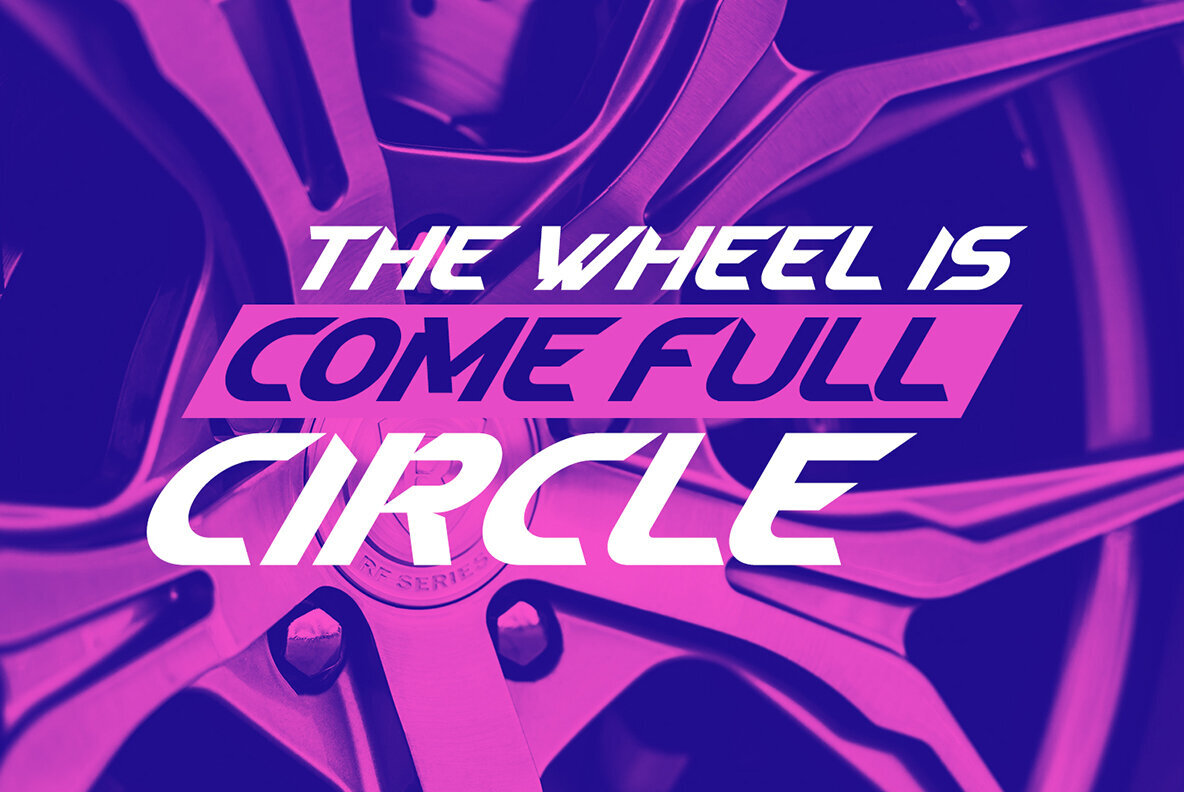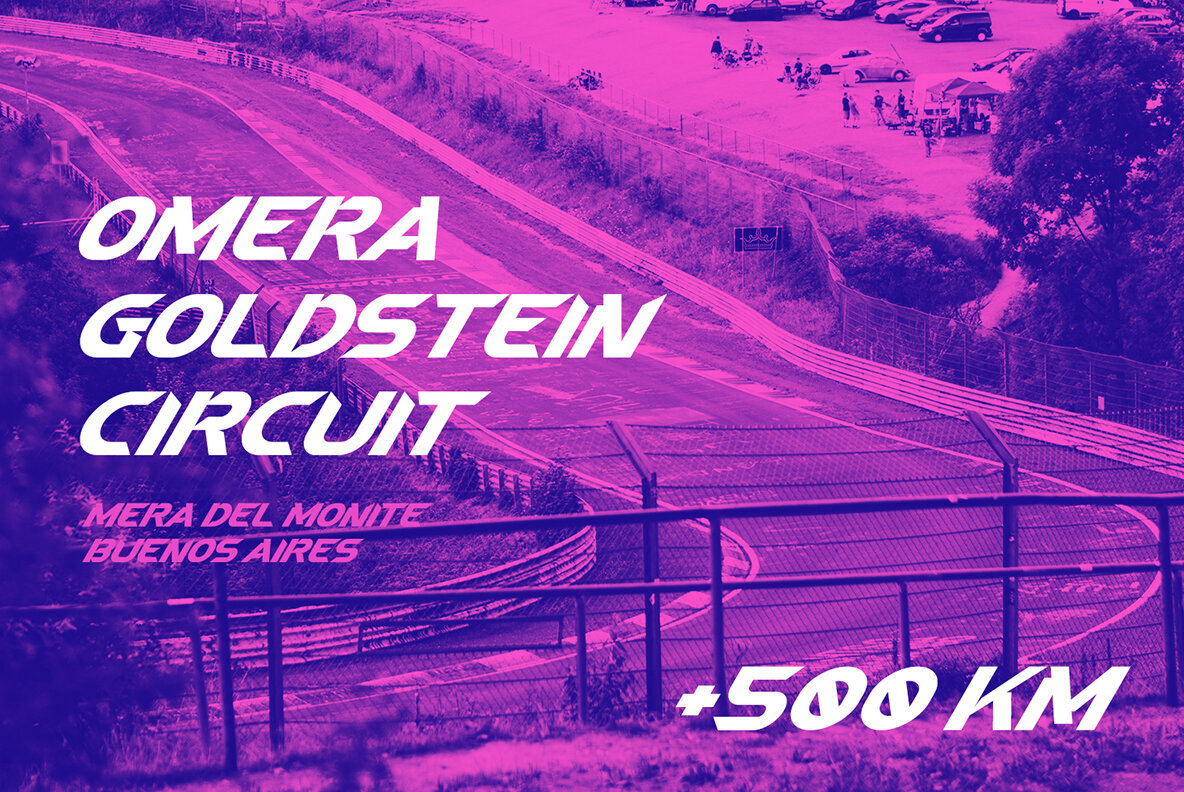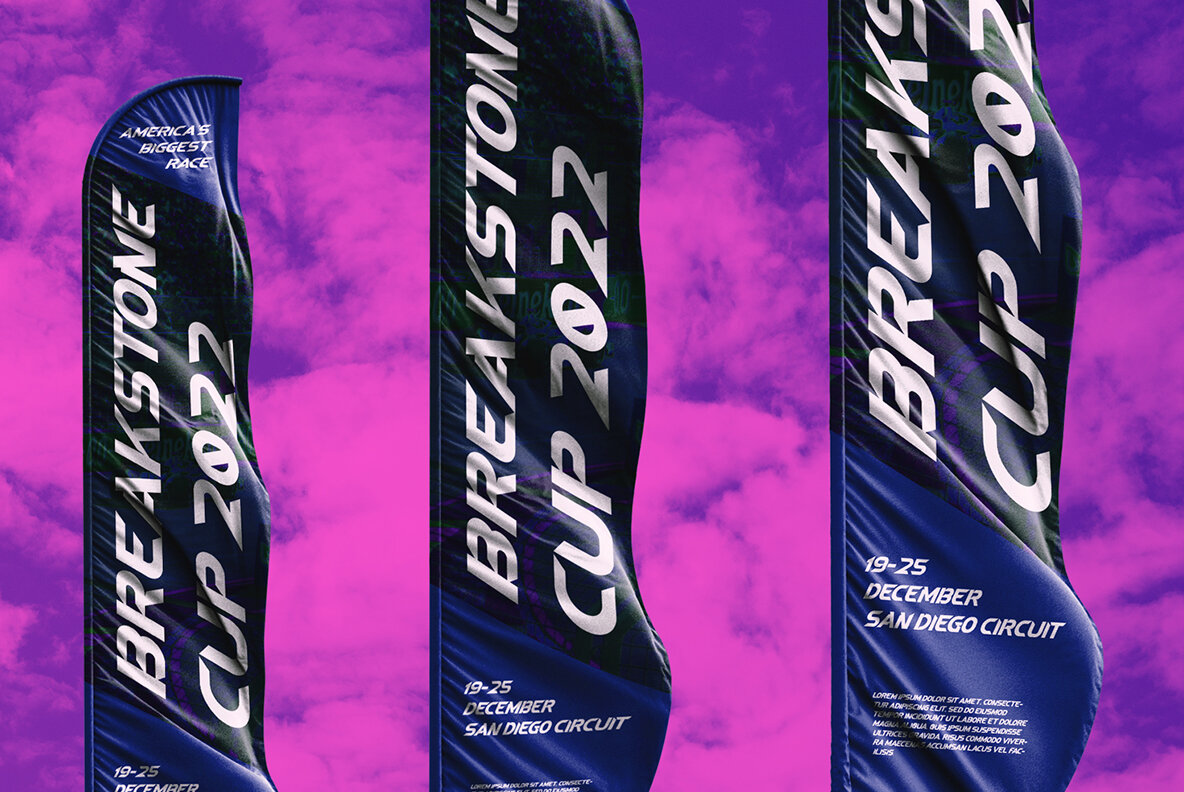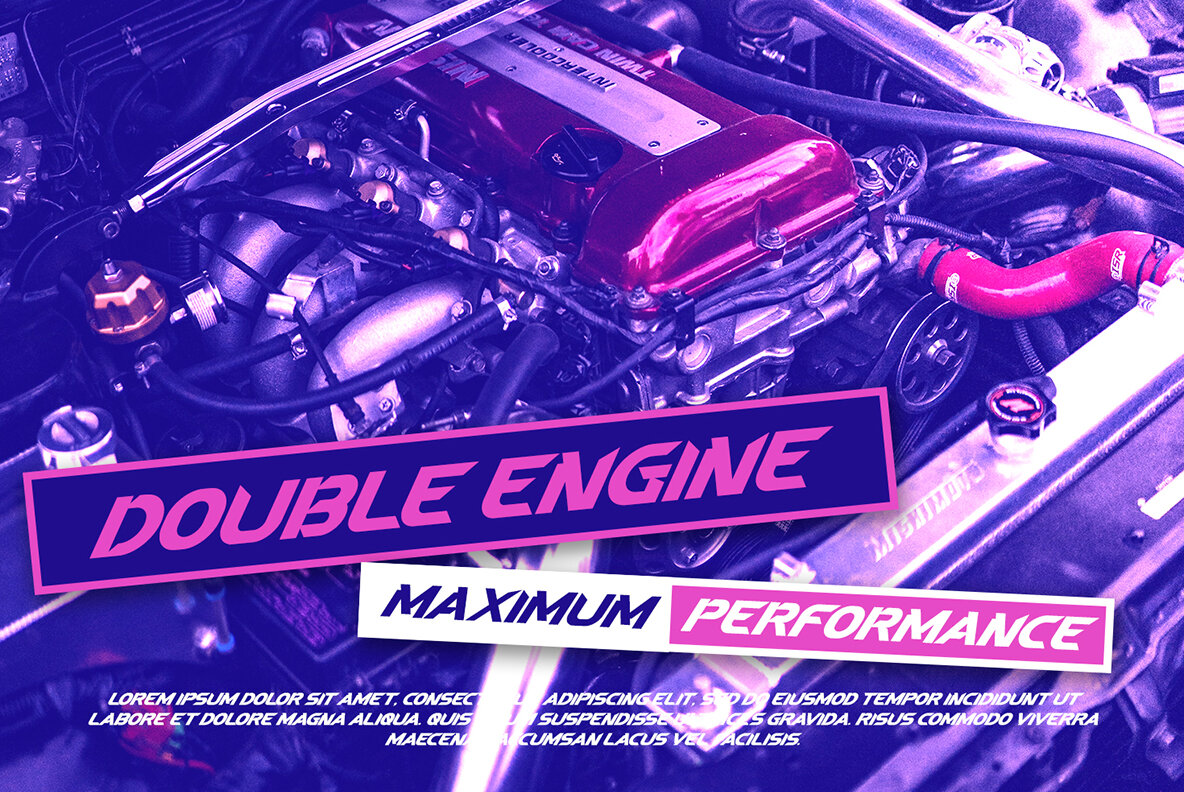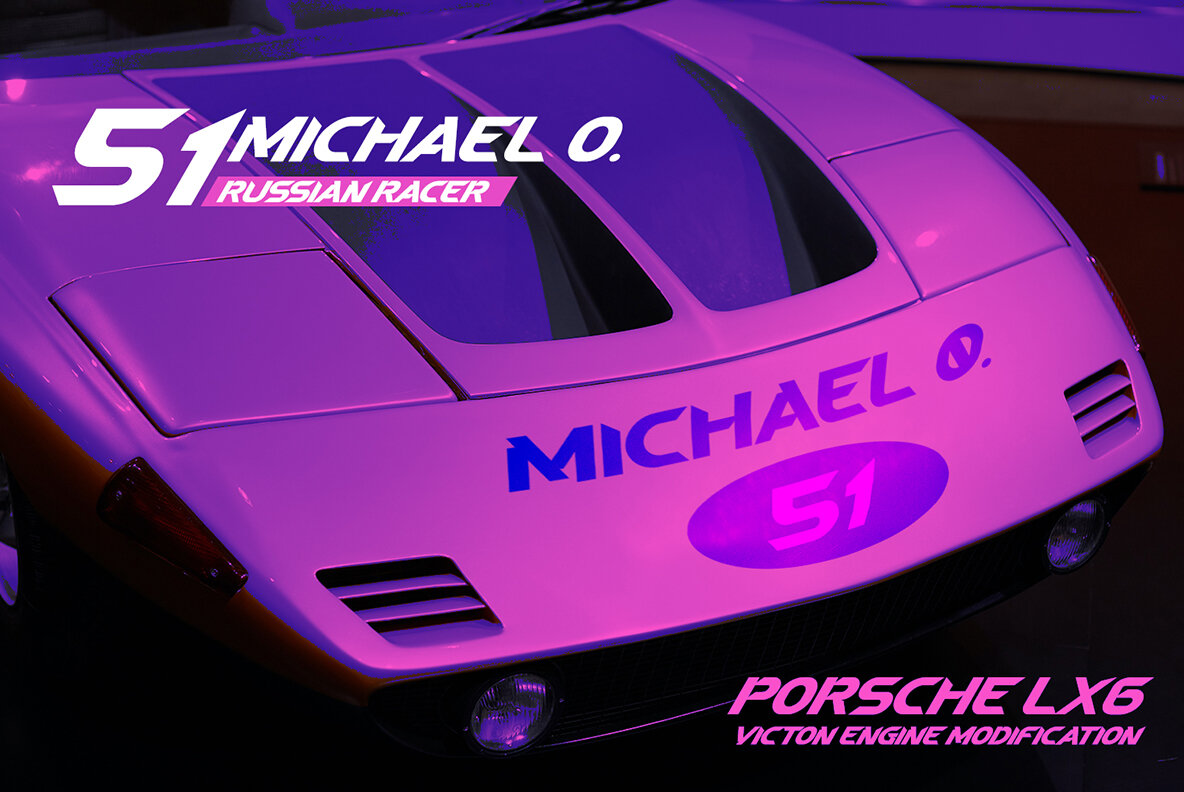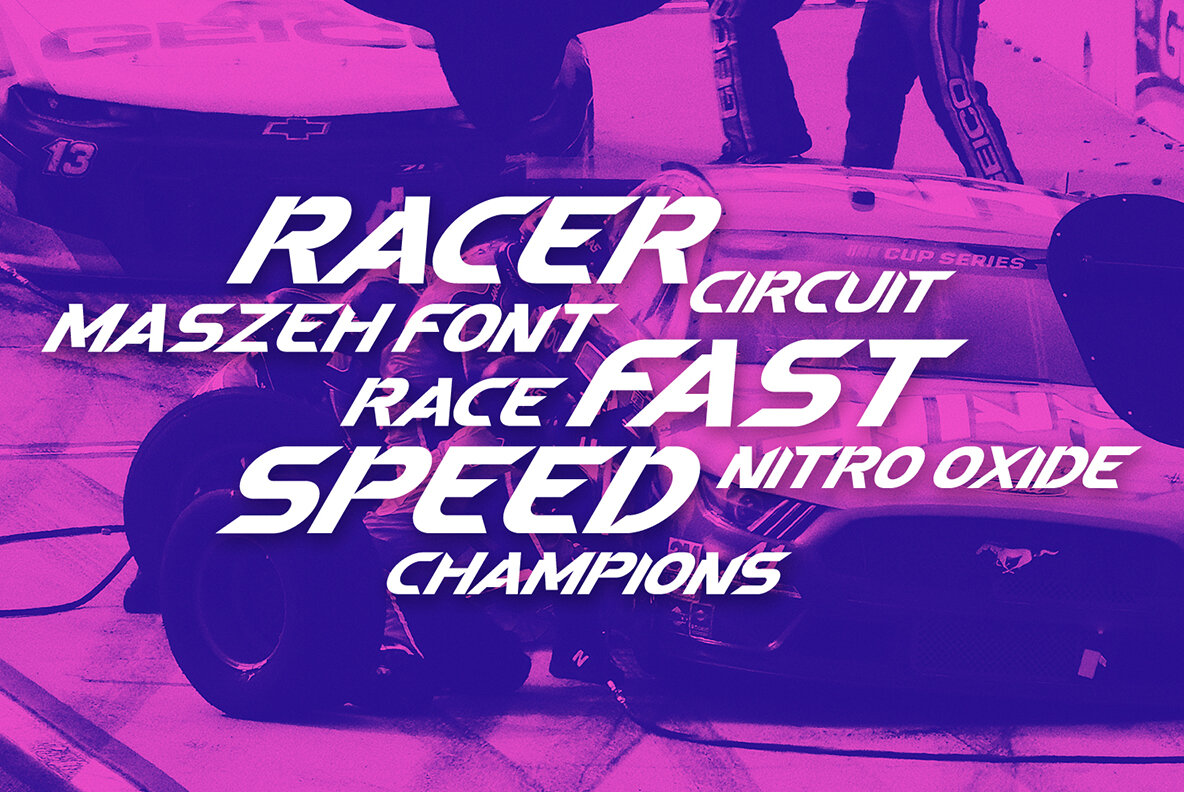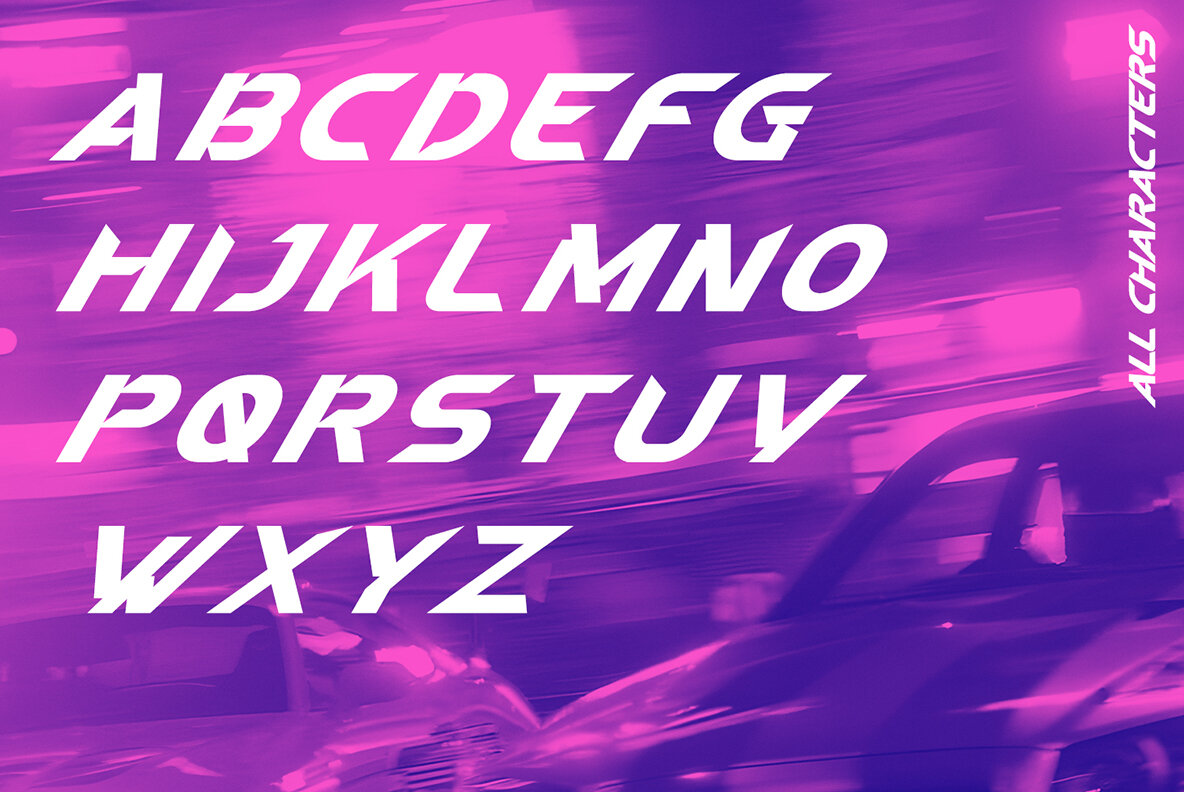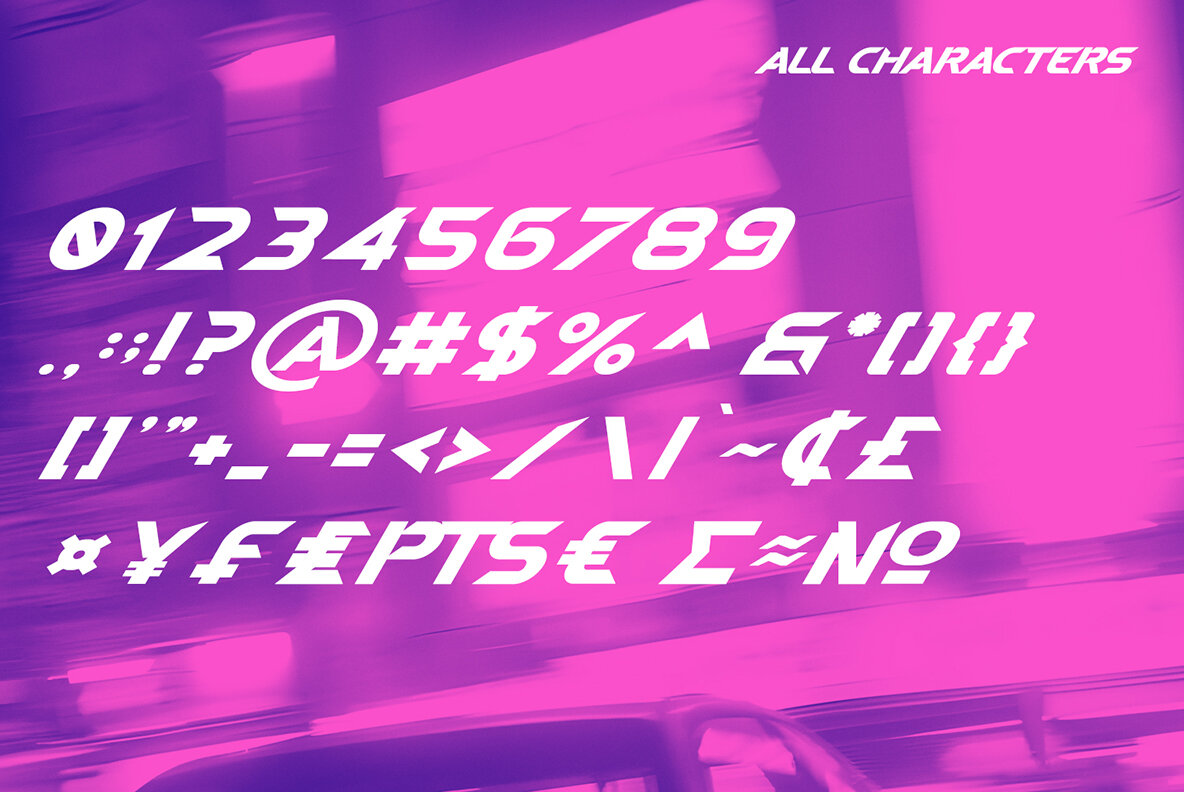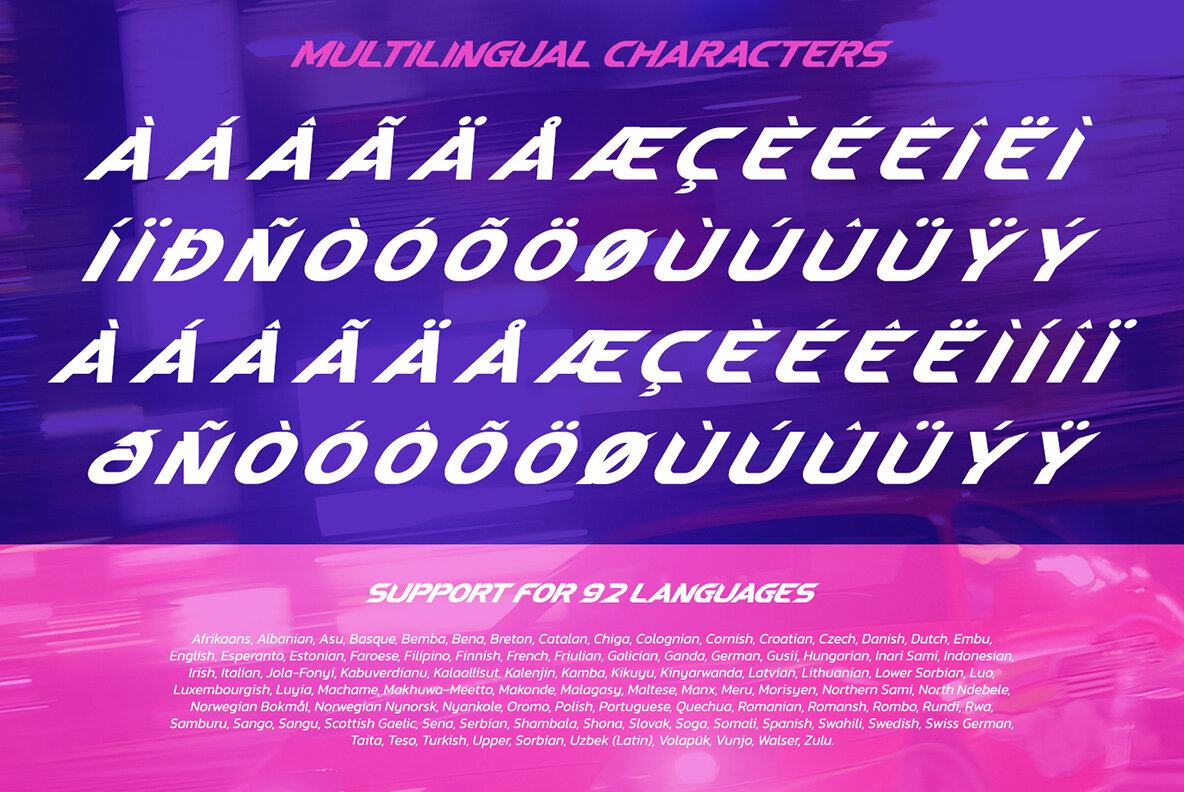
Maszeh Font
Maszeh Regular
Maszeh captures the spirit of speed and strength. Crafted with a racing theme, it lends a bold impression to any design. Perfect for larger texts like titles, Maszeh ensures a commanding presence without overpowering your message. Use this font to enhance your work in diverse projects including posters, banners, logos, and more. Its versatility extends to book covers, printed products, and even social media. Explore the font preview to discover its full potential in various design contexts.Maszeh: Bold Font for Dynamic Designs